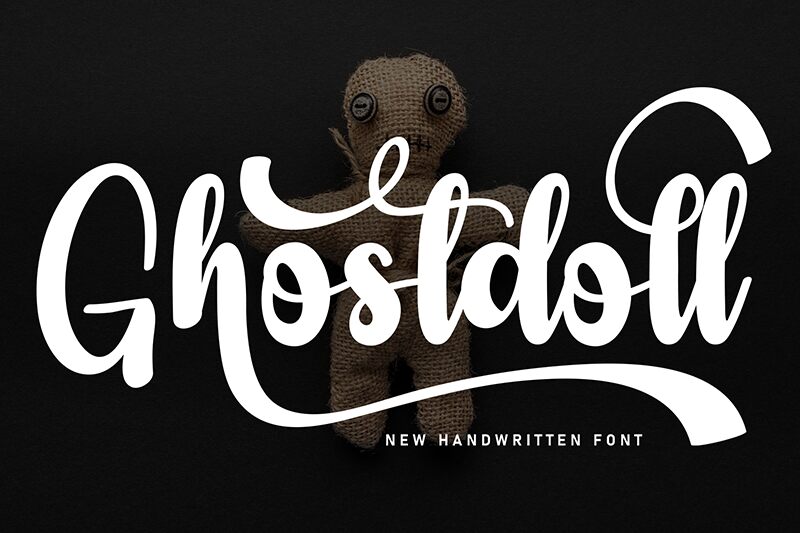
Ghostdoll
Ghostdoll font is a bold brush handwriting typeface by Andi Moz. It combines expressive and signature-style script characters that embrace modernity for casual elegance in various projects. The smooth flow, together with the font’s all uppercase characters, allows for refinement to be obtained for personal brandings or commercial items.
A free handwritten font can serve designers of greeting cards, invites or event invitations, logotypes and signatures, posters and flyers for businesses or events, online stores. Why not use it on digital projects such as apps and websites?